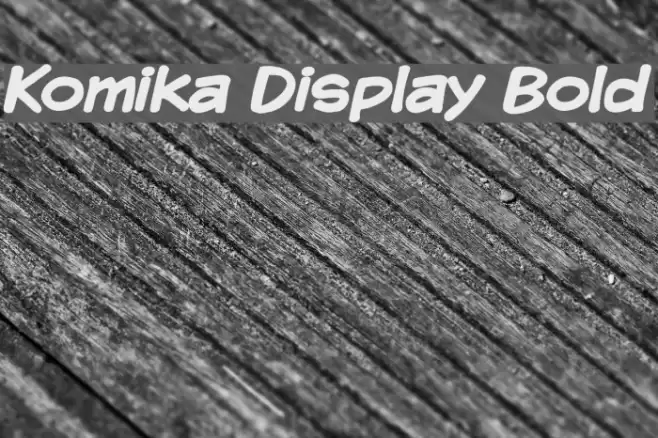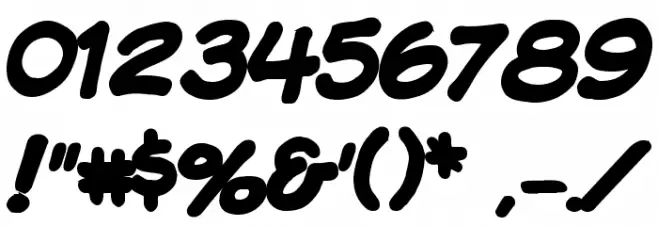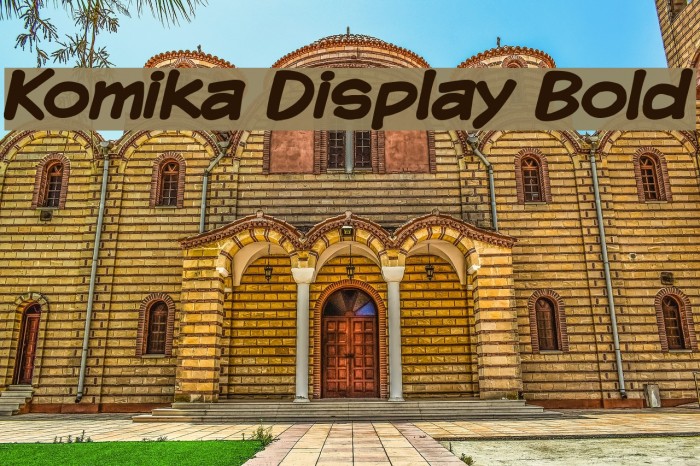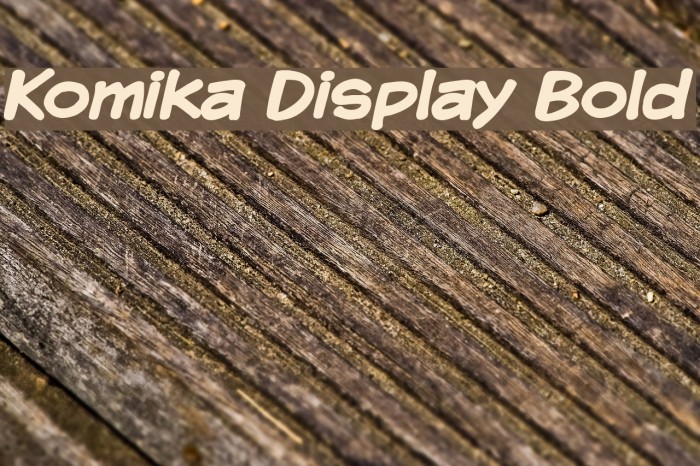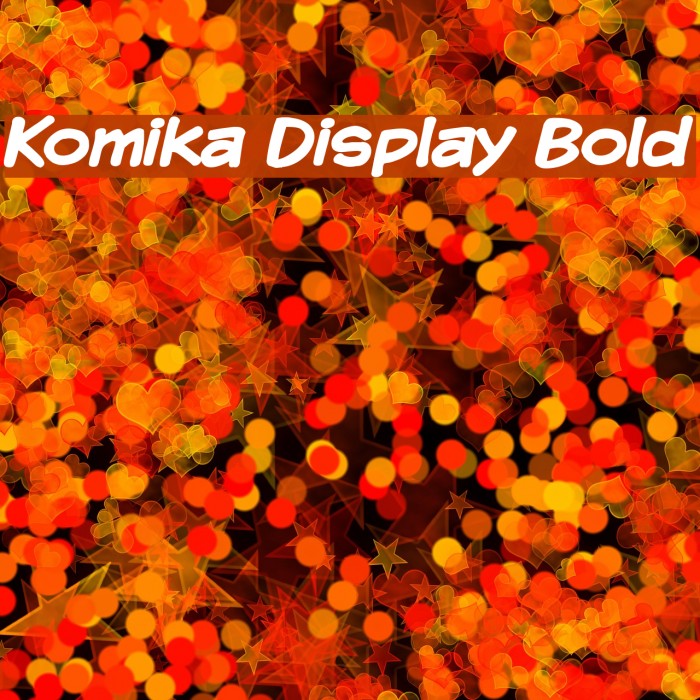
Komika Display Bold Font
Komika Display Bold Description
This font exudes a playful and bold character, with its thick, rounded strokes and slightly slanted letters. The uppercase and lowercase letters maintain a consistent style, offering a sense of cohesion and balance. The numbers and special characters follow the same design principles, ensuring uniformity across all elements. The font's boldness and rounded edges give it a friendly and approachable appearance, making it ideal for projects that require a touch of whimsy and fun. Its legibility is enhanced by the clear distinction between each character, despite the boldness of the strokes.
A playful, bold font with rounded strokes and a slightly slanted style from Comic fonts.
- Proposed Projects: Perfect for comic books, children's books, playful branding, and casual invitations.
- Overall Style: Playful, Casual